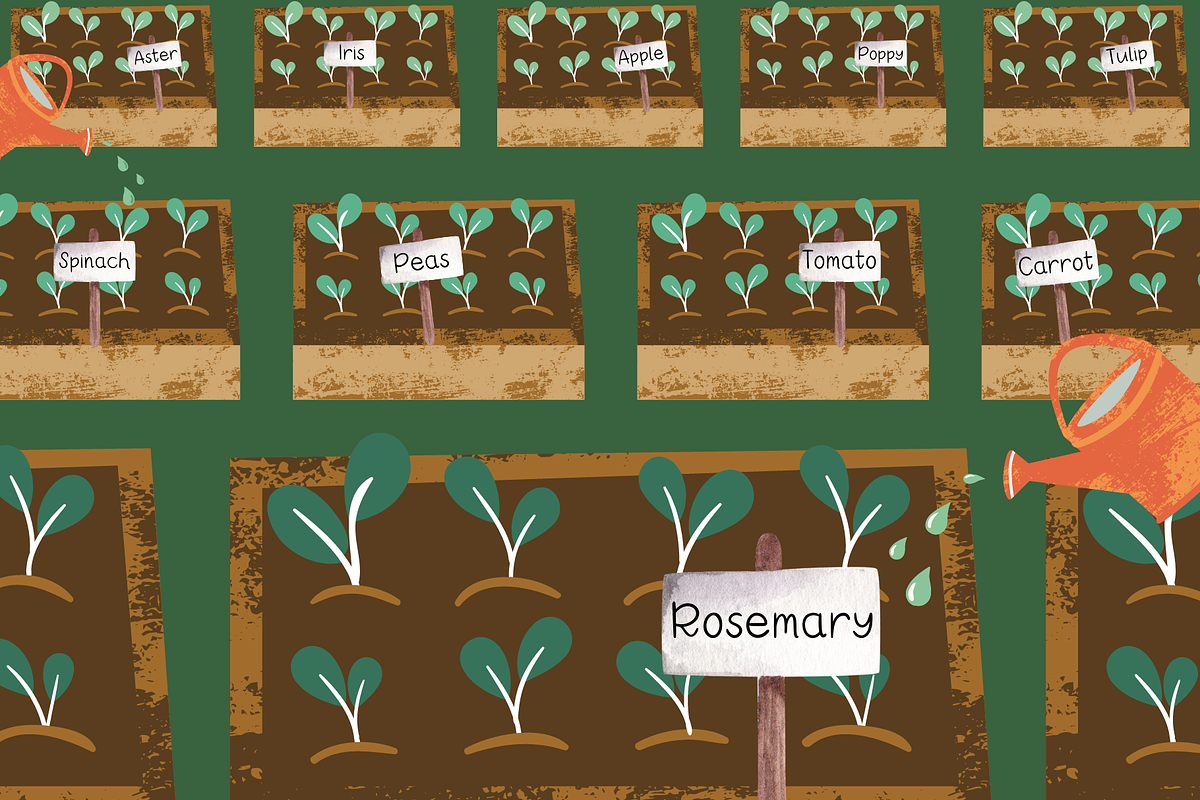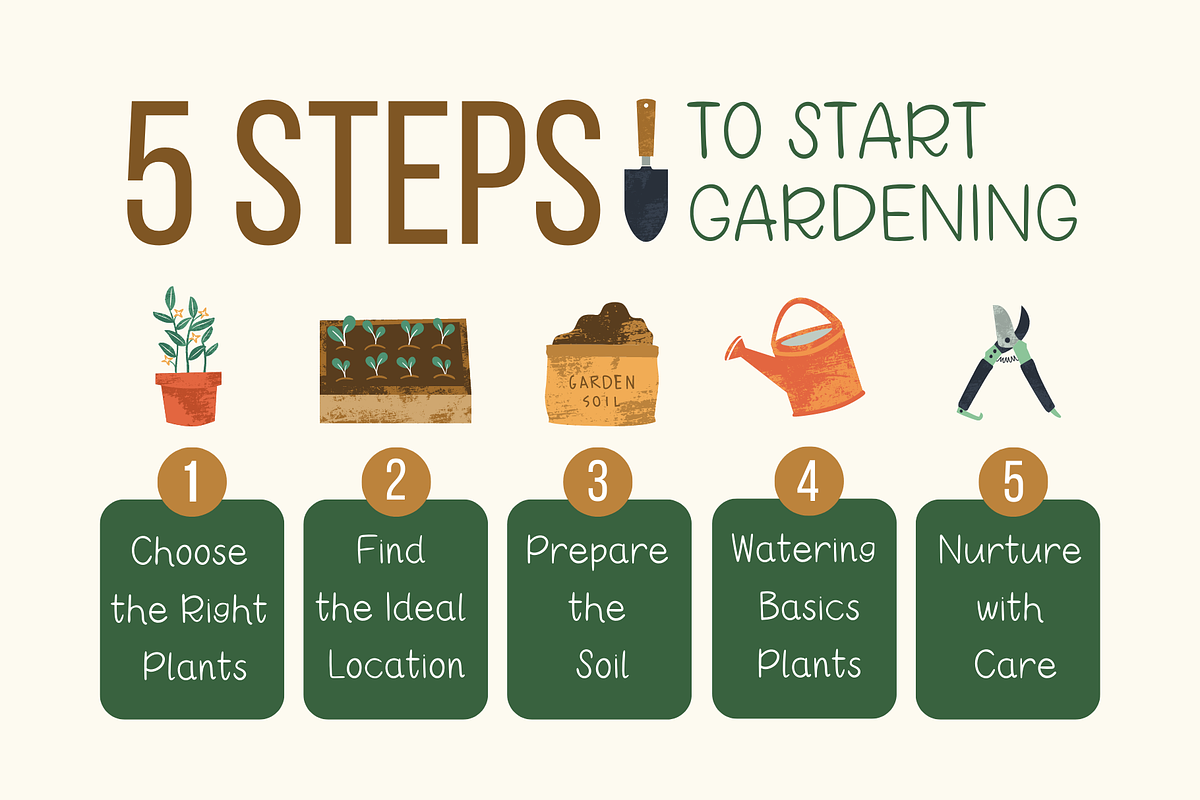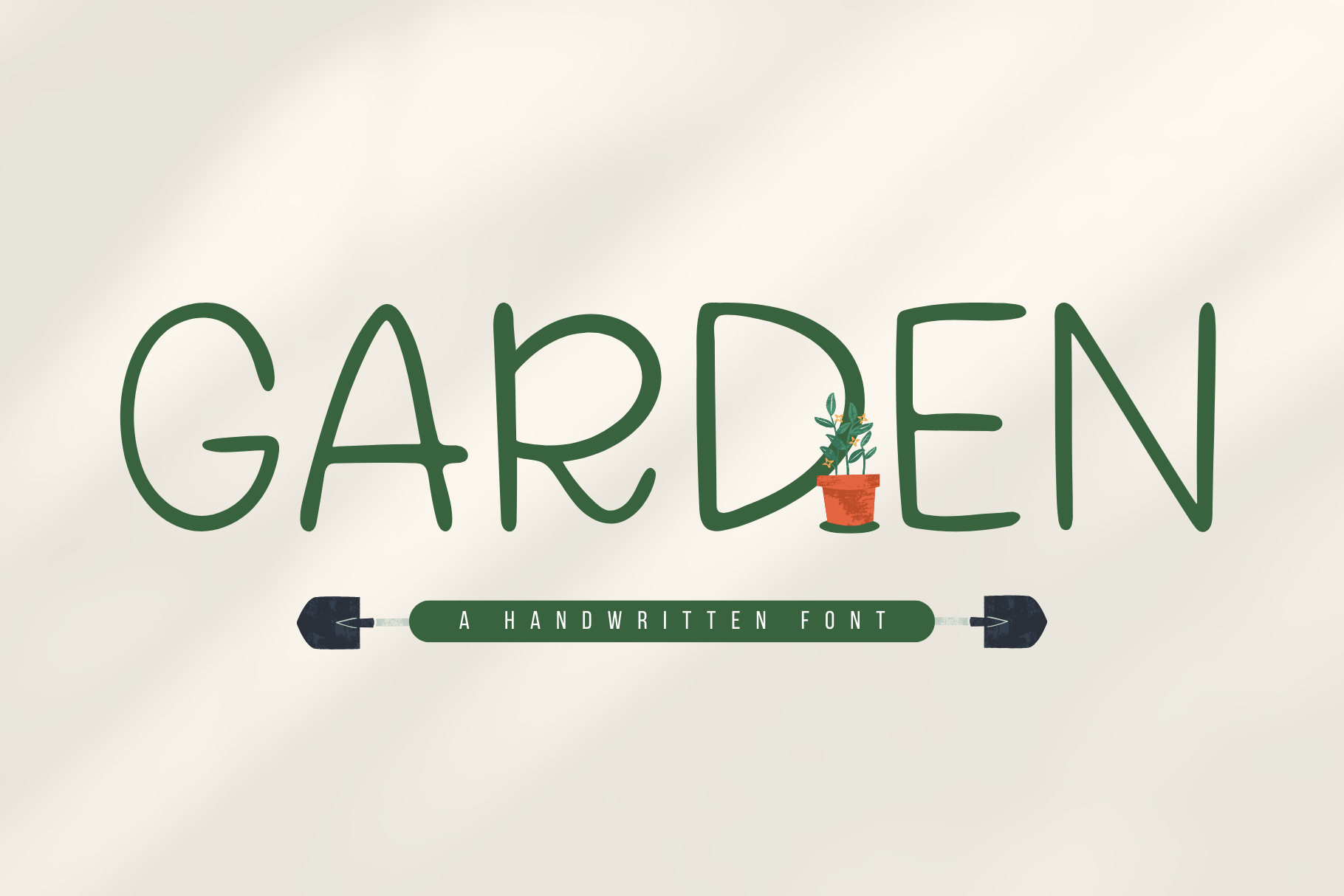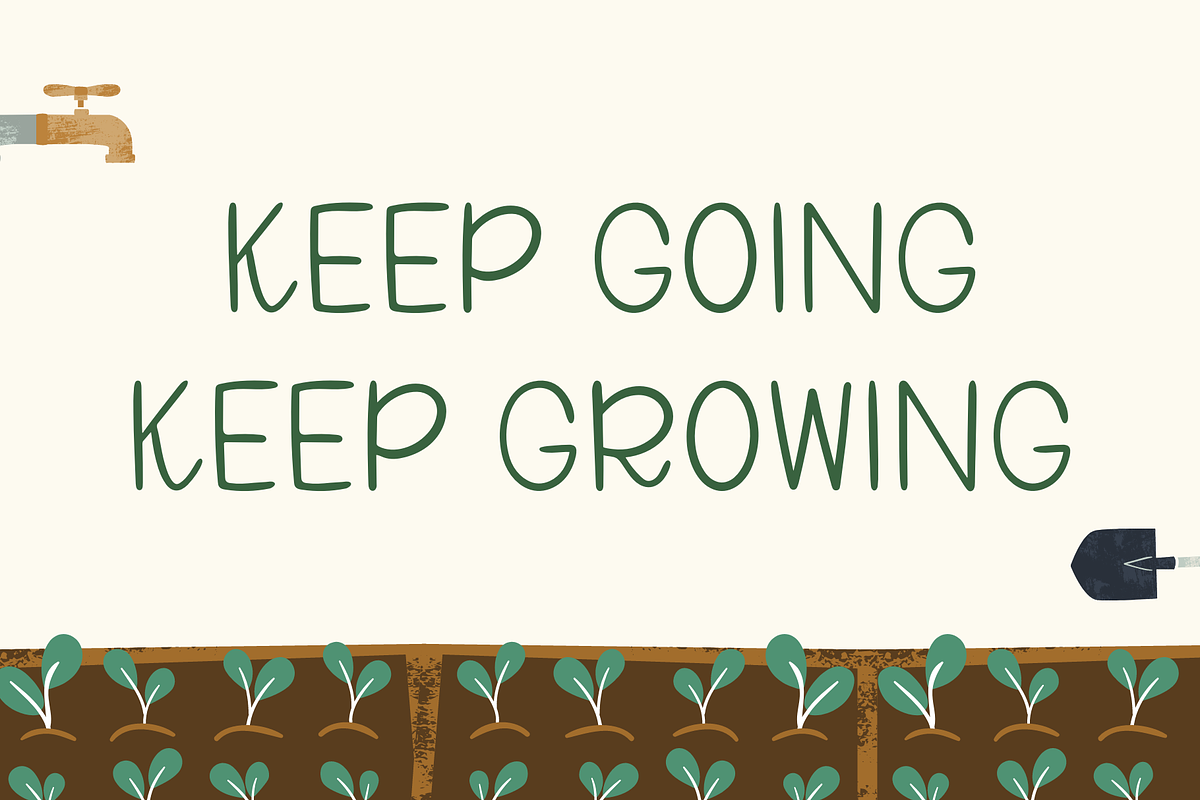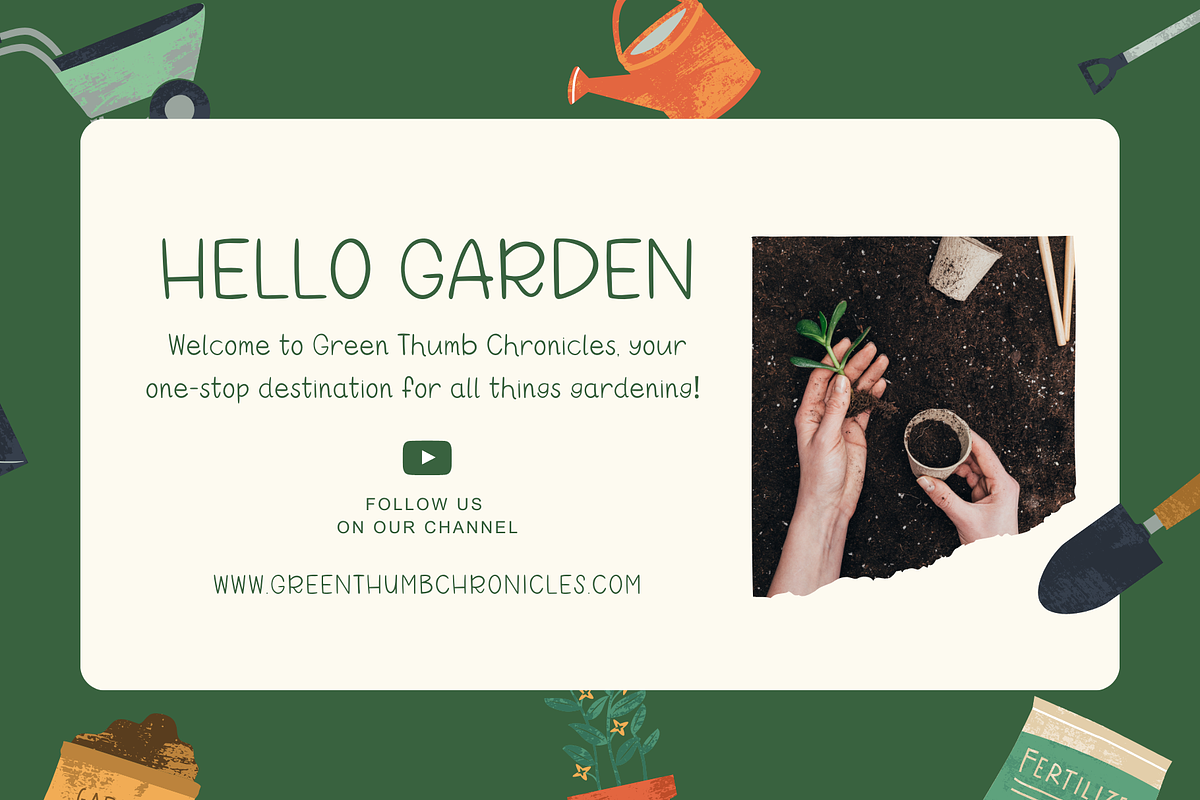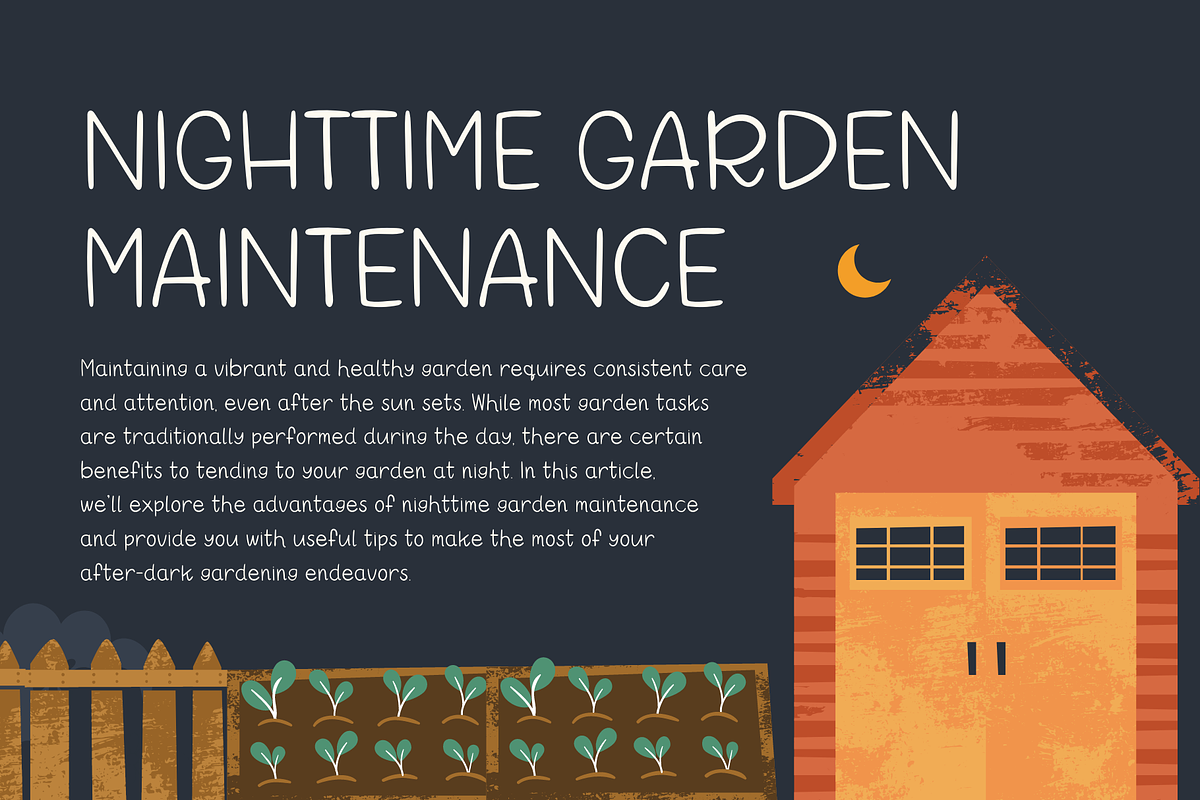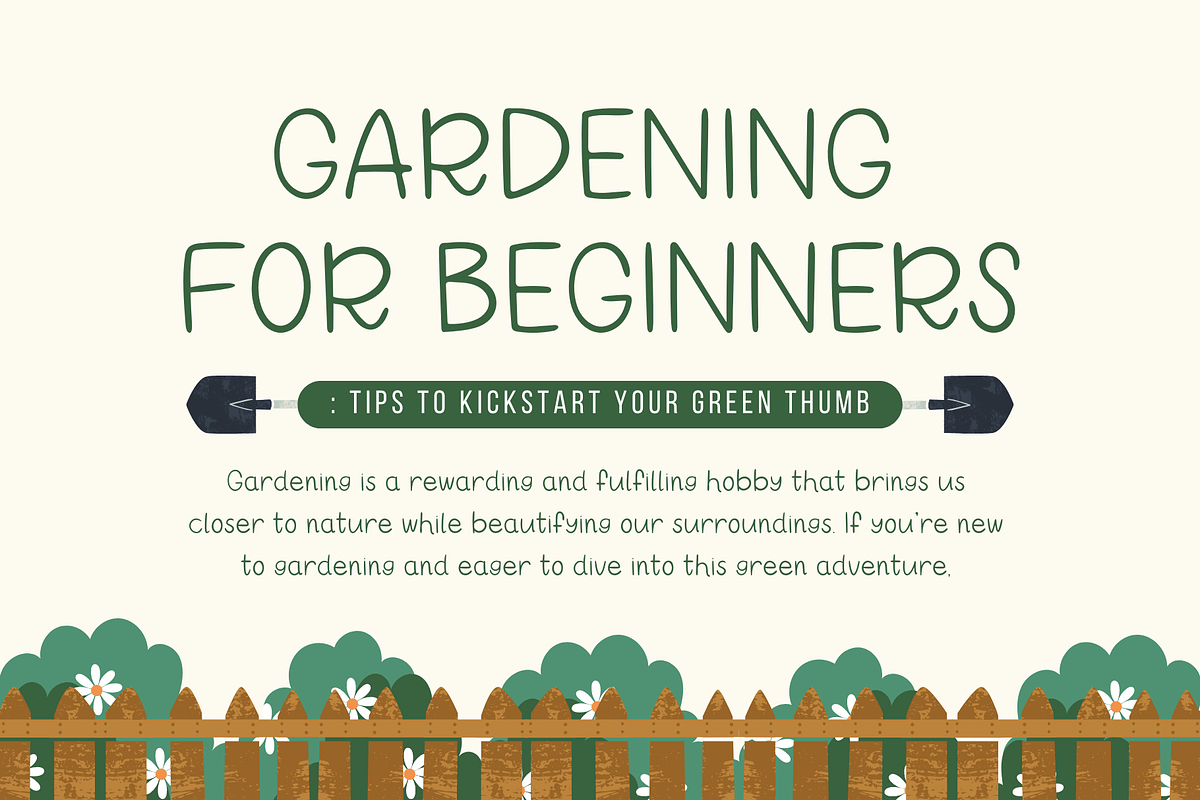
Garden A Handwriting Font
The Garden Handwriting Font is a typeface that features uneven lines, mimicking the charm of handwritten text and conveying a sense of simplicity. It exudes a friendly and lively vibe, making it suitable for a wide range of design projects.